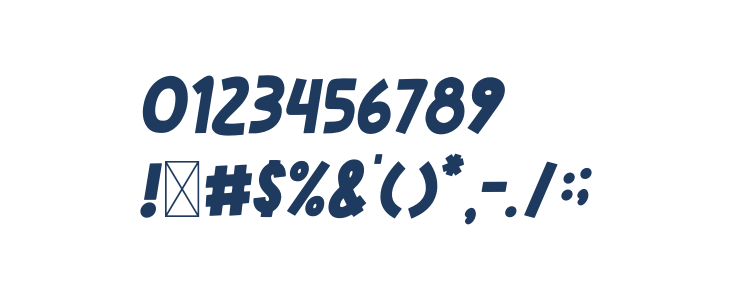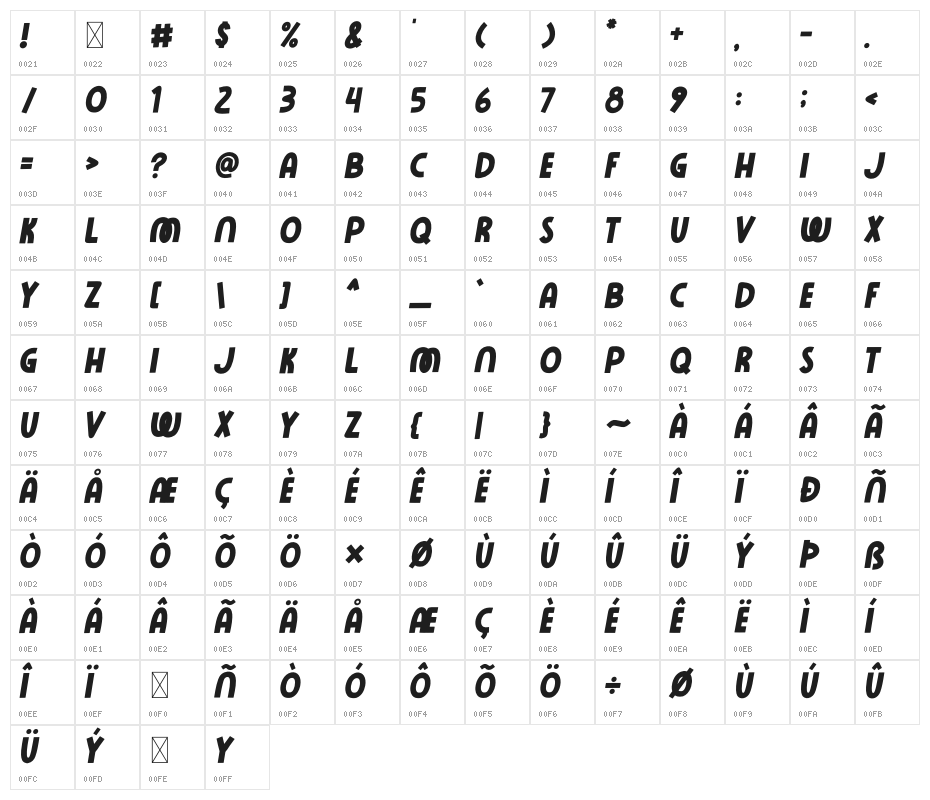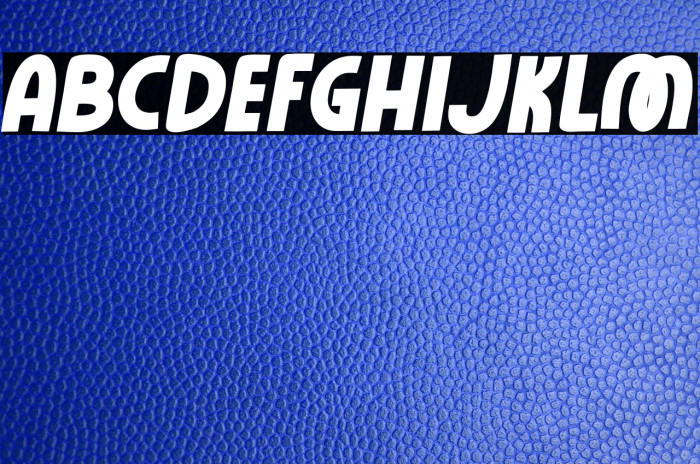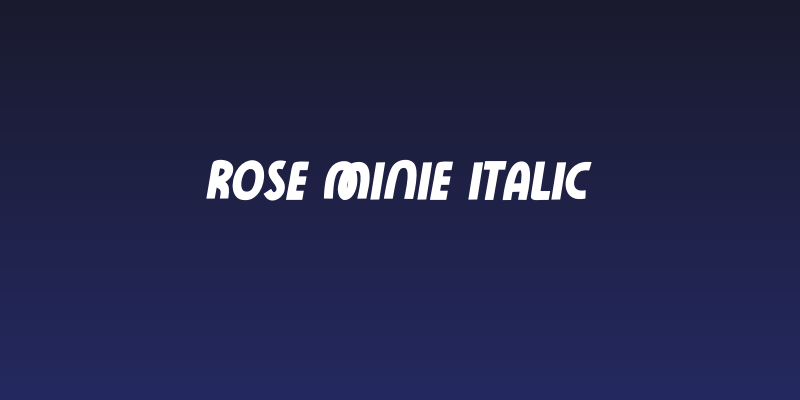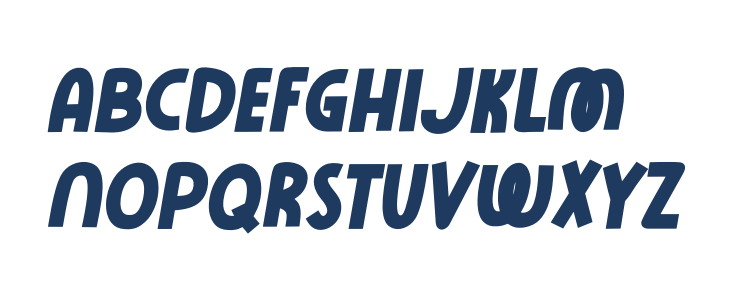
Rose Minie Italic Font
Rose Minie Italic Description
This font features a bold and dynamic style with a distinct italic slant, giving it a sense of motion and energy. The characters are thick and rounded, providing a strong visual impact. The uppercase and lowercase letters maintain a consistent design, with smooth curves and a slightly condensed form. The numerals are equally bold, ensuring readability and uniformity across different uses. Special characters are included, each designed to match the overall aesthetic, making this font versatile for various applications.
| Proposed Projects | Ideal for branding, advertising, posters, and any project needing a bold, eye-catching typeface. |